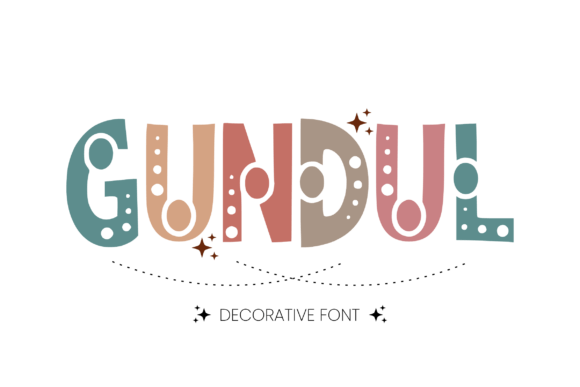
Gundul Font: Your Perfect Partner for All Things Summery and Delightful!
Are you looking for a font that can add a touch of joy and elegance to your creative projects? Look no further than the Gundul Font! This adorable decorative typeface is designed to take your designs to a whole new level, offering an array of unique and cheerful characters that are sure to captivate your audience.
What Makes Gundul Font So Special?
- Unique and Cheerful Characters: Gundul Font offers a wide range of unique and cheerful characters that are perfect for adding a touch of personality to your designs.
- Elegant and Refined: Despite its playful nature, Gundul Font is also elegant and refined, making it suitable for a wide range of design projects.
- Perfect for Creative Projects: Whether you’re designing comics, stickers, t-shirts, mugs, or embroidery, Gundul Font is the perfect choice.
Endless Design Possibilities with Gundul Font
Gundul Font is an incredibly versatile font that can be used for a wide range of design projects. Here are some ideas to get you started:
- Illustrate Captivating Comics: Use Gundul Font to create engaging and fun comics that will capture the hearts of your readers.
- Design Distinctive Stickers: Create eye-catching stickers that will make your brand or product stand out from the crowd.
- Print Standout T-Shirts: Use Gundul Font to create unique and stylish t-shirts that will make your customers look and feel great.
- Craft Memorable Mugs: Design beautiful and functional mugs that will make your customers’ daily coffee routine a little more special.
- Embark on Enterprising Embroidery: Use Gundul Font to create stunning embroidery designs that will add a touch of elegance to any fabric.
The Benefits of Using Gundul Font
So why choose Gundul Font for your design projects? Here are just a few benefits you can expect:
- Easy to Read: Despite its decorative nature, Gundul Font is easy to read and understand, making it perfect for body text and headlines.
- Highly Versatile: Gundul Font can be used for a wide range of design projects, from comics and stickers to t-shirts and embroidery.
- Unique and Memorable: Gundul Font is designed to be unique and memorable, making it perfect for brands and products that want to stand out from the crowd.
Tips and Tricks for Using Gundul Font
Here are some tips and tricks for getting the most out of Gundul Font:
- Experiment with Different Sizes: Gundul Font looks great in a variety of sizes, so don’t be afraid to experiment and find the perfect size for your design.
- Pair with Other Fonts: Gundul Font pairs well with a variety of other fonts, so try pairing it with some of your favorite fonts to create a unique look.
- Use it for Headlines and Body Text: Gundul Font is easy to read and understand, making it perfect for both headlines and body text.
In conclusion, Gundul Font is a unique and versatile font that is perfect for a wide range of design projects. With its cheerful and elegant characters, it’s sure to add a touch of joy and sophistication to any design. Whether you’re designing comics, stickers, t-shirts, mugs, or embroidery, Gundul Font is the perfect choice. So why wait? Download Gundul Font today and start creating your own unique and memorable designs!